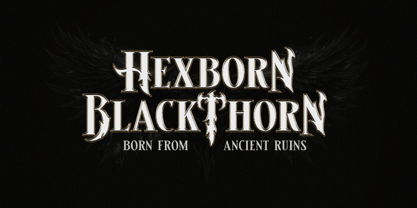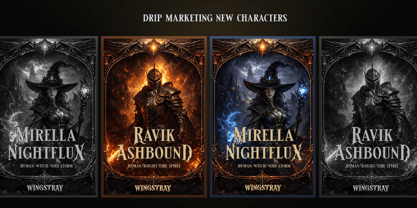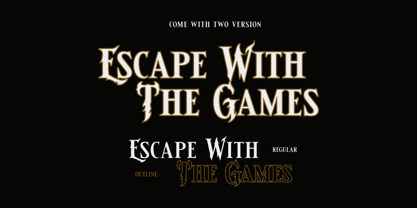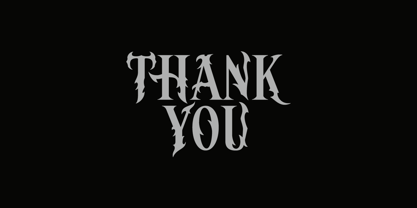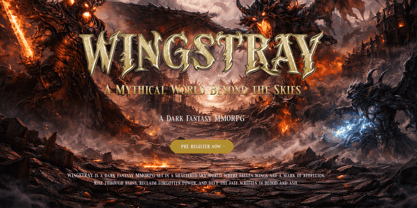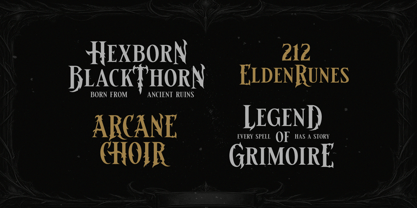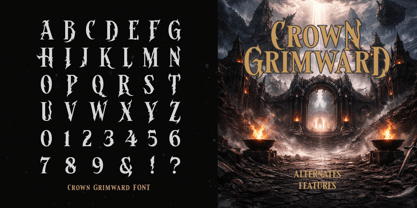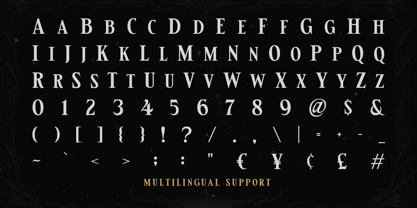
Crown Grimward
The Crown Grimward Font Family was designed by Hendry Juanda and published by Letterhend. Crown Grimward contains 2 styles and family package options. More about this family
Designed for massive gothic games, Crown Grimward delivers a dark, dramatic serif style with a strong medieval soul. the letters feel heavy and commanding, creating an intense and immersive atmosphere. ideal for game titles, fantasy game branding, cinematic posters, and epic headers. Features : Uppercase & lowercase Numbers and punctuation Alternates & Ligatures Multilingual Support